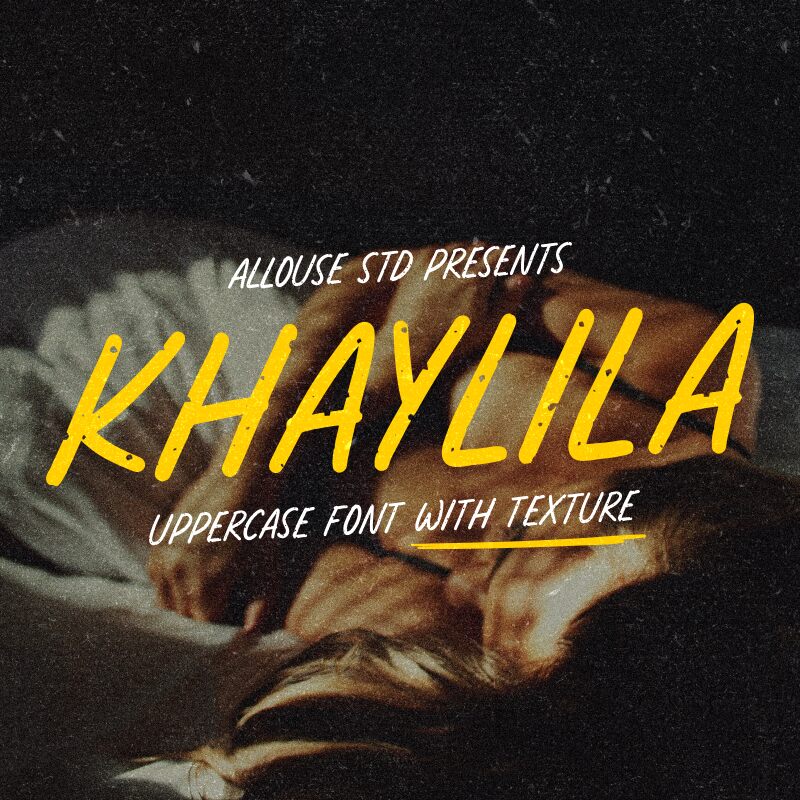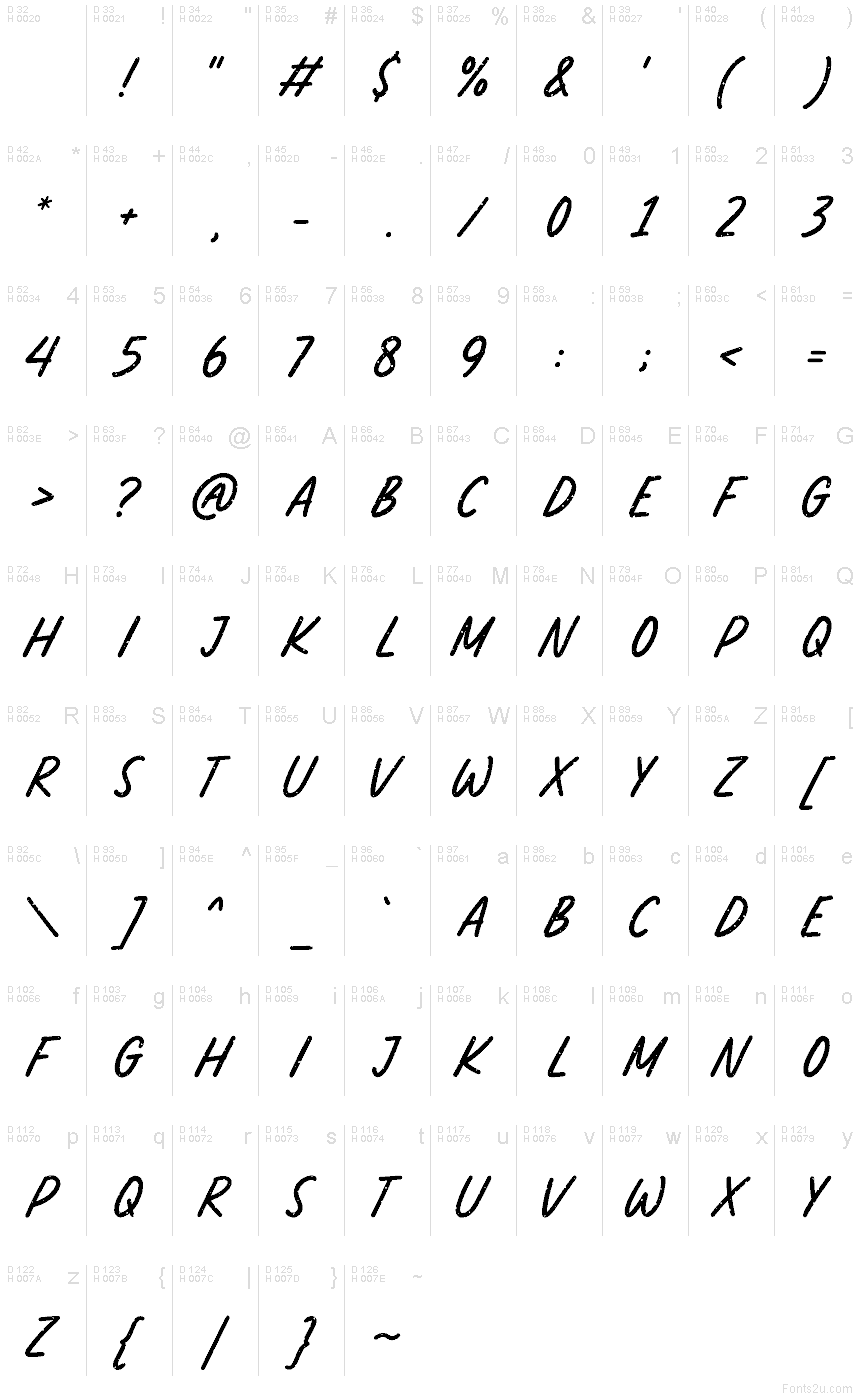
Khaylila
Khaylila font by Allouse Studio is a free brush typeface with a gritty, paint-spattered bite. Each stroke looks hand-swiped and slightly dry, dotted with inky flecks that add movement and texture without sacrificing legibility. The letters lean forward with quick, confident energy, giving headlines a raw, human pulse that feels freshly painted on a wall.
Using Khaylila, your work instantly gains streetwise attitude—great for gig posters, streetwear branding, stickers, packaging, social graphics, and bold YouTube thumbnails. The spacing keeps words tight and punchy, so it shines large and up close. Pair this free font with a clean grotesk for captions, or keep the focus on its brush texture by dialing back color and letting the black ink do the talking.